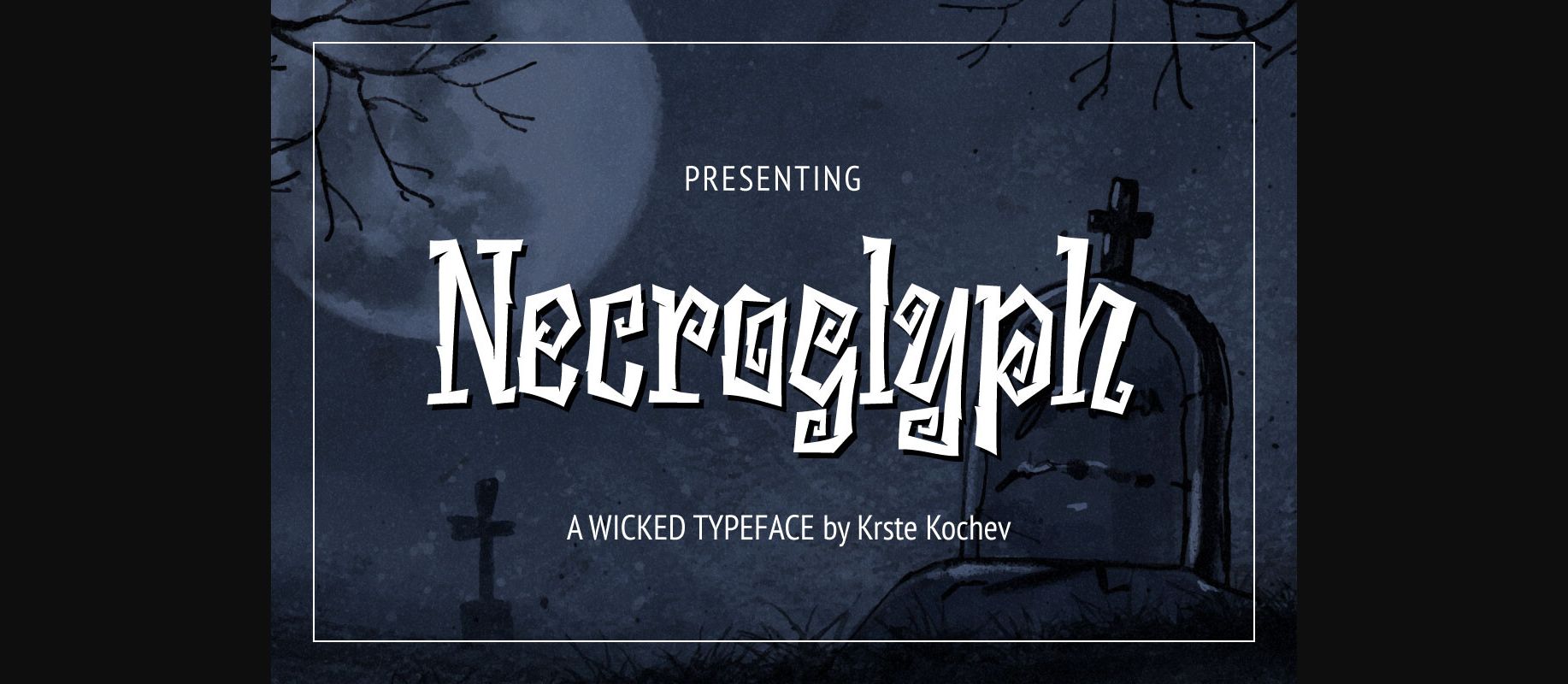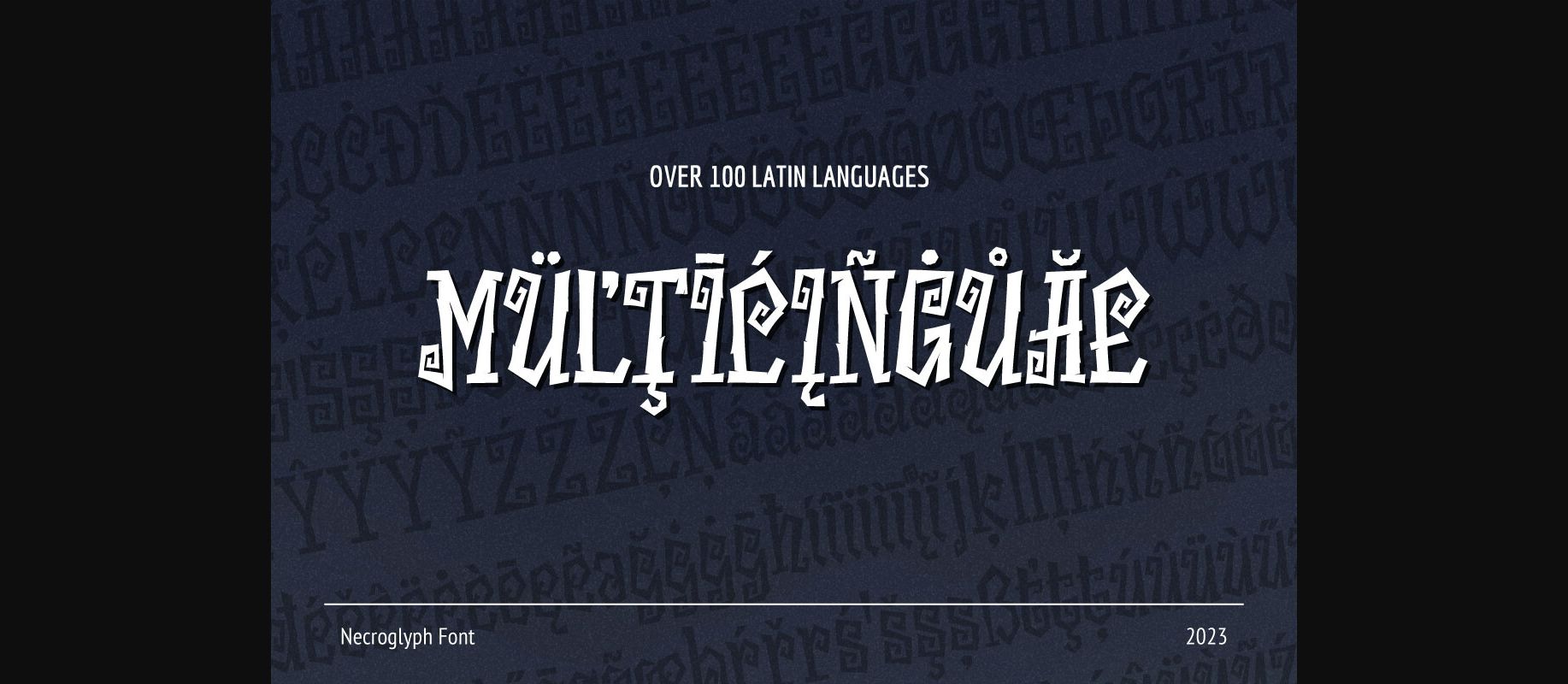
About Necroglyph Font
“Necroglyph” is a hauntingly captivating Halloween font that will send shivers down your spine. With its eerie, twisted letterforms and sinister, occult-inspired glyphs, Necroglyph captures the essence of the macabre and the supernatural. Whether you’re designing invitations for a haunted house party or crafting spine-chilling signage for a spooky event, Necroglyph will infuse your text with an otherworldly, mysterious aura that’s perfect for the Halloween season. Unleash the dark and mystic power of Necroglyph to add a touch of the paranormal to your designs and set the stage for a truly eerie and unforgettable Halloween experience.